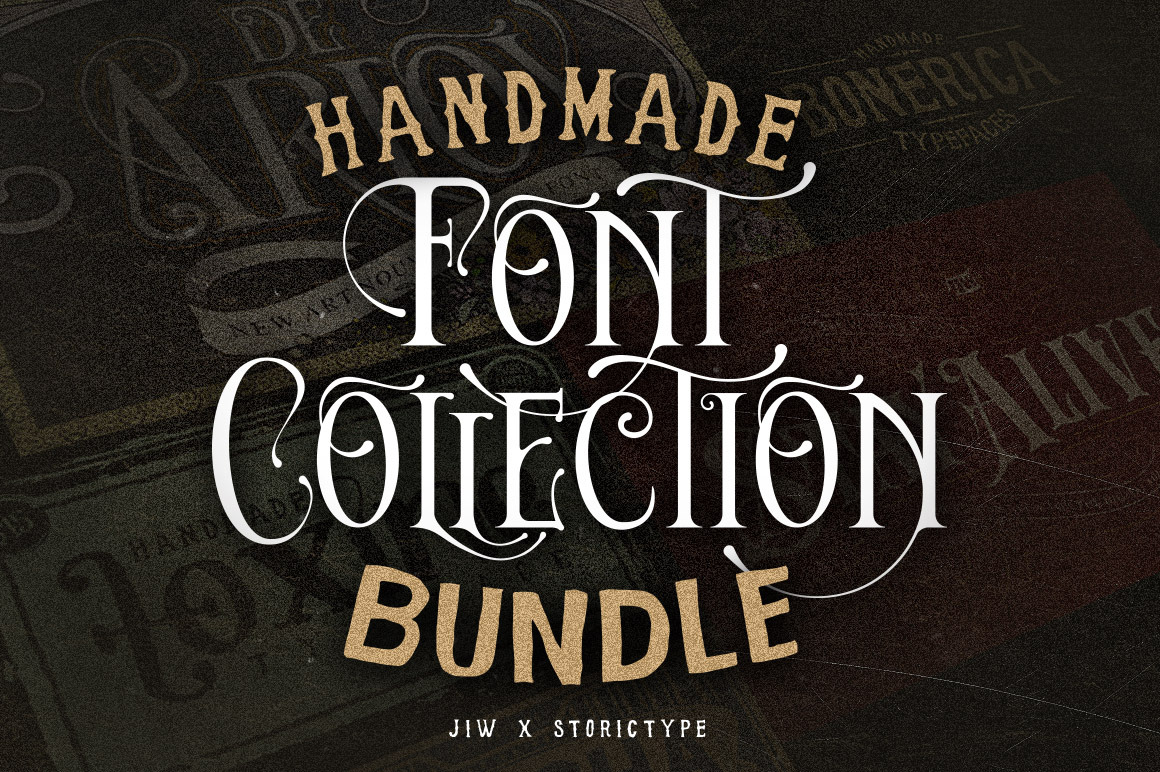
Handmade Font Collection Bundle
5 handmade Fonts Bundle
This bundle is 5 vintage, victorian, art nouveau period, and rustic theme, super low price for $19 only + commercial use allowed, and with a unlimited time
This is good for projects like a t-shirt, posters,etc and a touch of vector, that allows you to mix and match pairs of typeface to fit your design
De Arloy Typeface :
Stay Alive Typeface :
Toxine Typeface:
Vercha Typeface:
Bonerica Typeface: